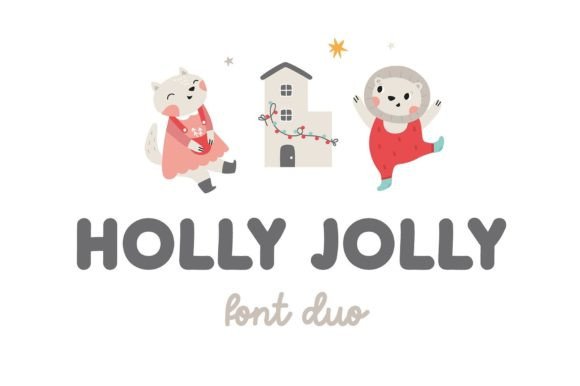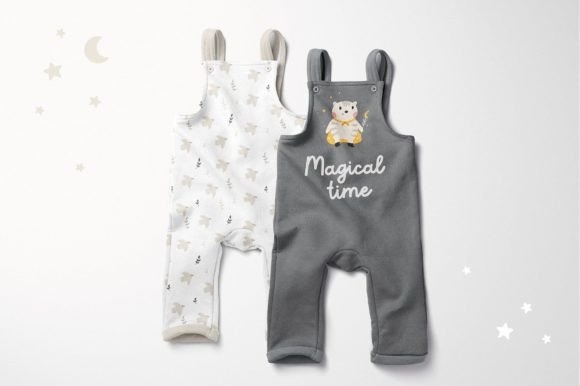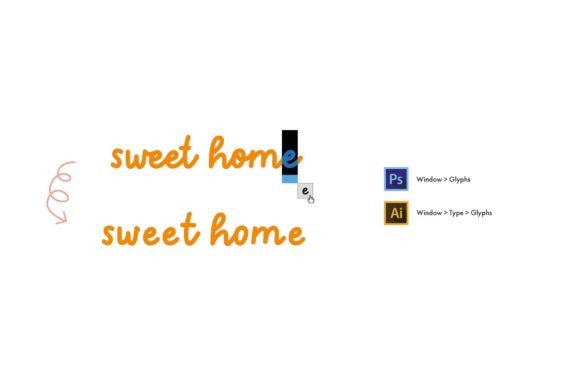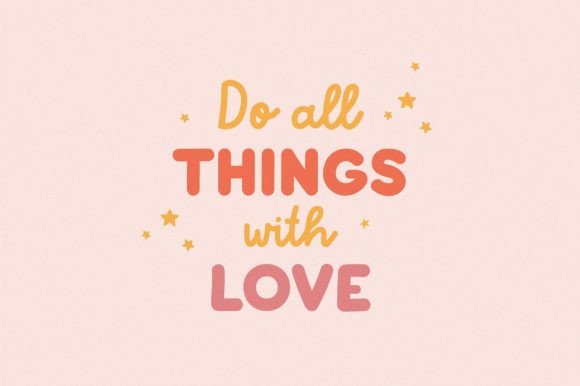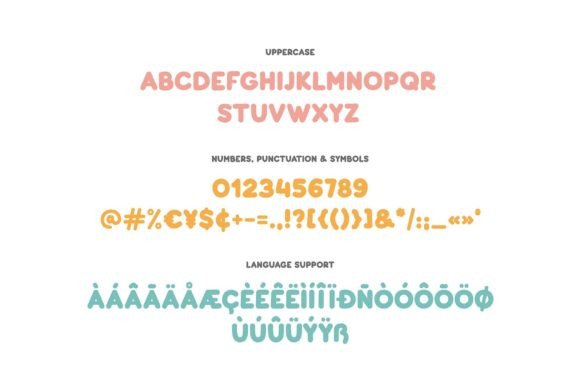
Holly Jolly Font
About Holly Jolly Font
“Holly Jolly” is presented as a charming font, showcasing a natural handwritten style that exudes cuteness. Tailored for projects targeting children, this font proves ideal for children’s books or any other creative endeavors aimed at capturing the whimsy and imagination of young audiences.
The font’s playful and natural handwritten design adds a delightful touch to projects, contributing to a visually appealing and child-friendly aesthetic. Whether used in book layouts, educational materials, or any other kid-centric projects, “Holly Jolly” is crafted to fit these concepts beautifully.
One standout feature of “Holly Jolly” is its PUA encoding. This encoding ensures easy access to a variety of glyphs and ligatures, enhancing the font’s versatility. It allows you to incorporate charming and unique characters effortlessly, adding an extra layer of creativity to your designs.
In summary, “Holly Jolly” goes beyond being just a font; it’s a creative tool crafted to bring joy and playfulness to projects designed for children. Its natural handwritten style and PUA encoding provide the flexibility and accessibility needed to create visually engaging and charming designs tailored specifically for young audiences.